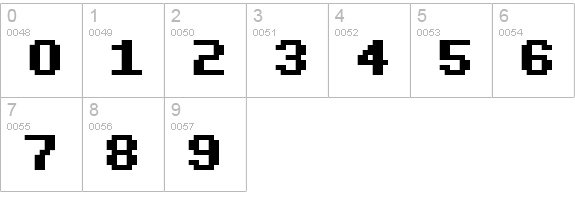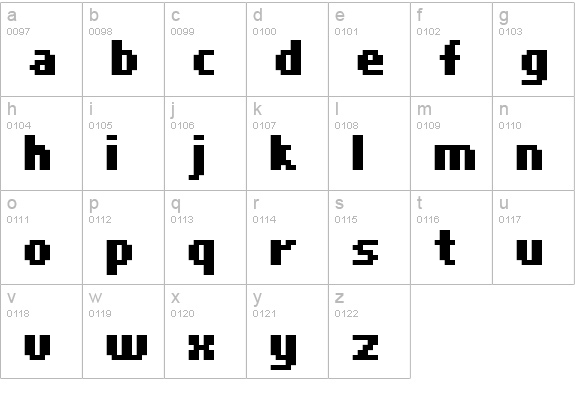
FFF Aquarius Bold Font Details
FFF Aquarius Bold is a strong, high-contrast variant in the FFF typeface family \xE2\x80\x94 well suited to headlines, attention-grabbing titles, and strong calls-to-action.
FFF Aquarius Bold font is a striking and bold typeface that exudes modernity and confidence. With its clean lines and sharp angles, this font is perfect for making a statement in any design project. The strong and commanding presence of FFF Aquarius Bold is sure to capture attention and leave a lasting impression. The best part about FFF Aquarius Bold font is that it is completely free to download. You can easily access this versatile typeface at FontsMarket.com and elevate your design projects with its bold and impactful aesthetic. Whether you're creating eye-catching posters, dynamic logos, or attention-grabbing headlines, FFF Aquarius Bold is the perfect choice to make your text stand out. Don't miss out on this fantastic font that combines style and strength in one captivating package. Download FFF Aquarius Bold today and take your designs to the next level!